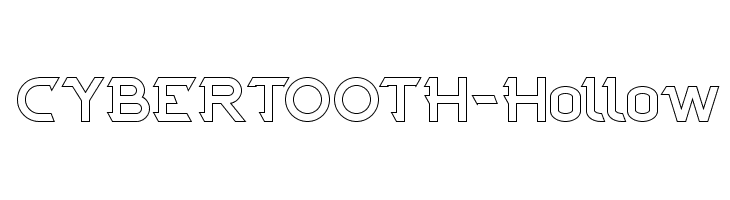
A geometric, pixelated font with a retro digital style.
A playful, hollow, and geometric font with a mechanical and futuristic style.
A bold, outlined font with a modern, sporty aesthetic.
A distressed, textured font with a rugged, vintage appearance.
A display font made up of bold, graphic street art illustrations.
A bold, playful font with layered, colorful designs and rounded edges.
A bold, expressive handwritten font with dynamic strokes.